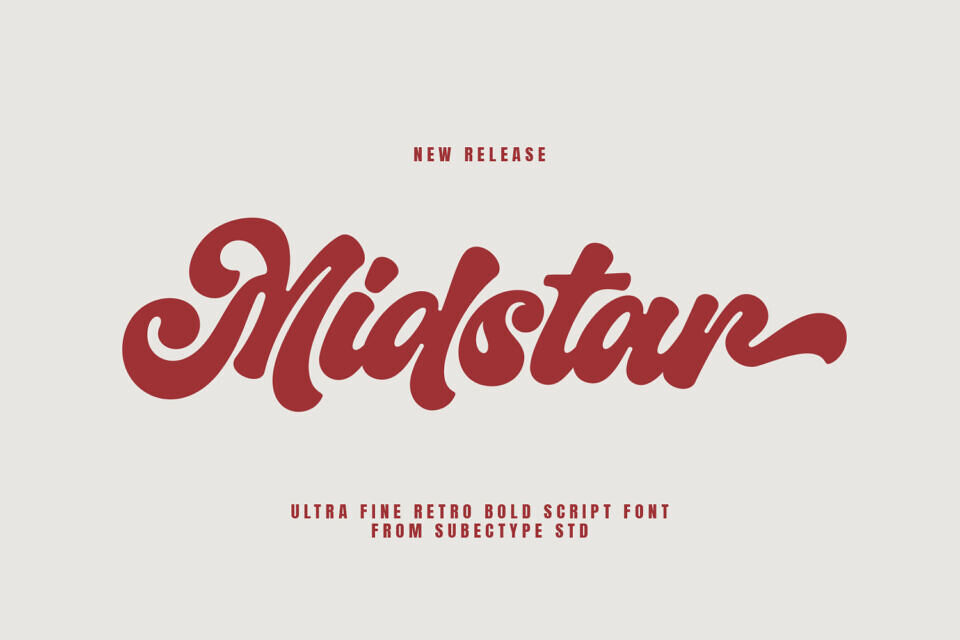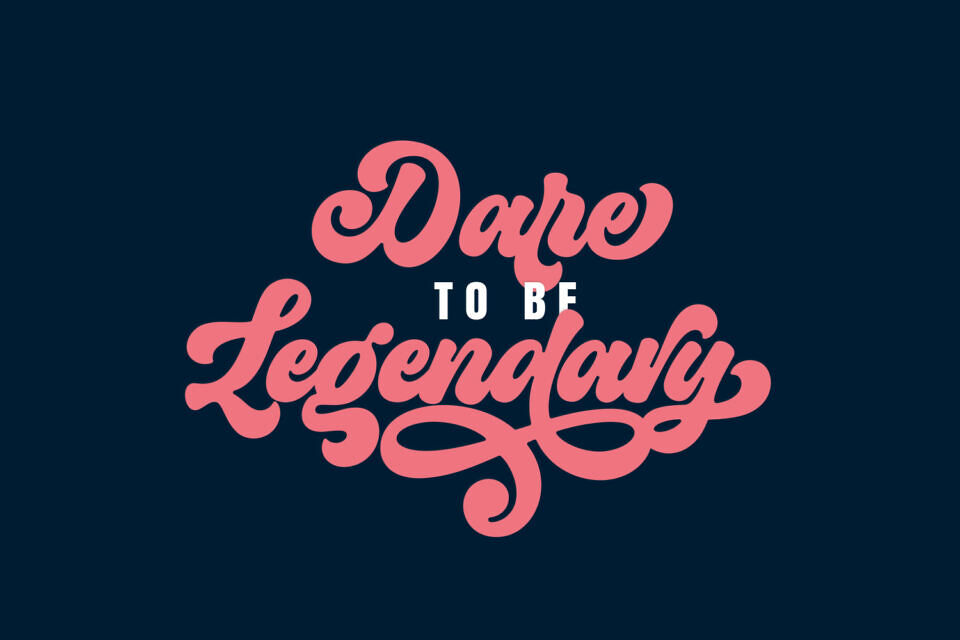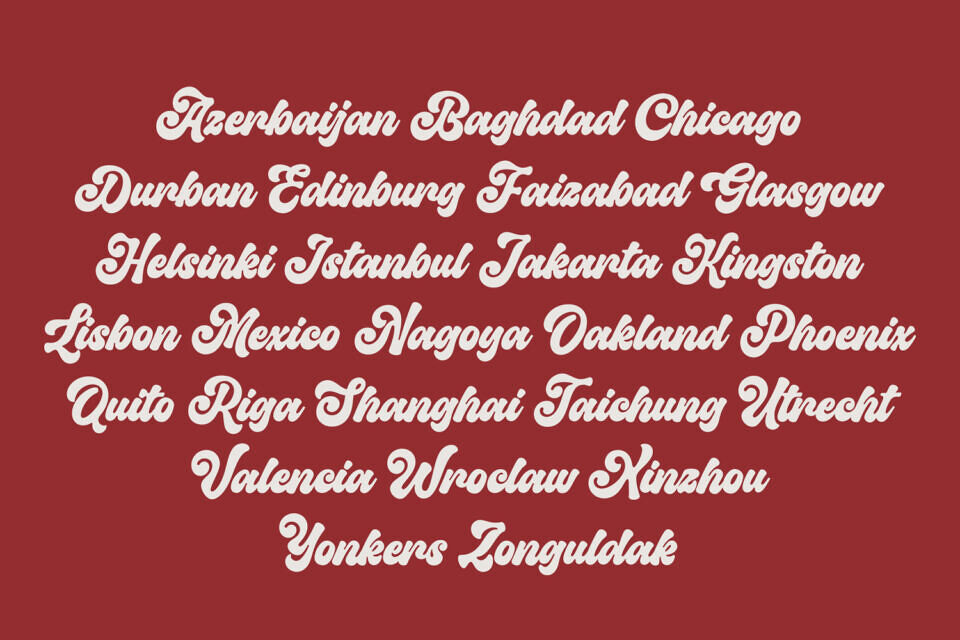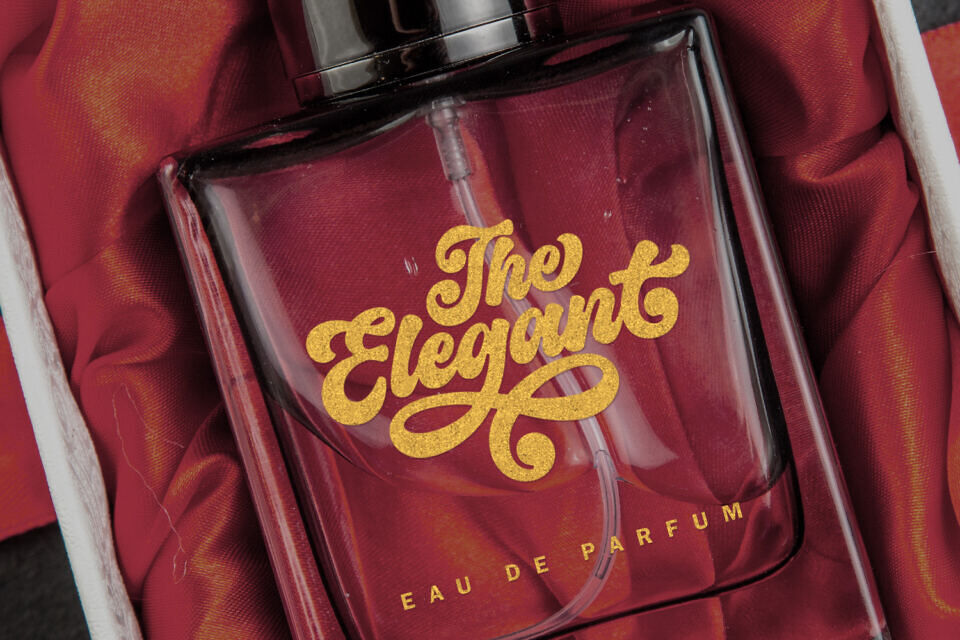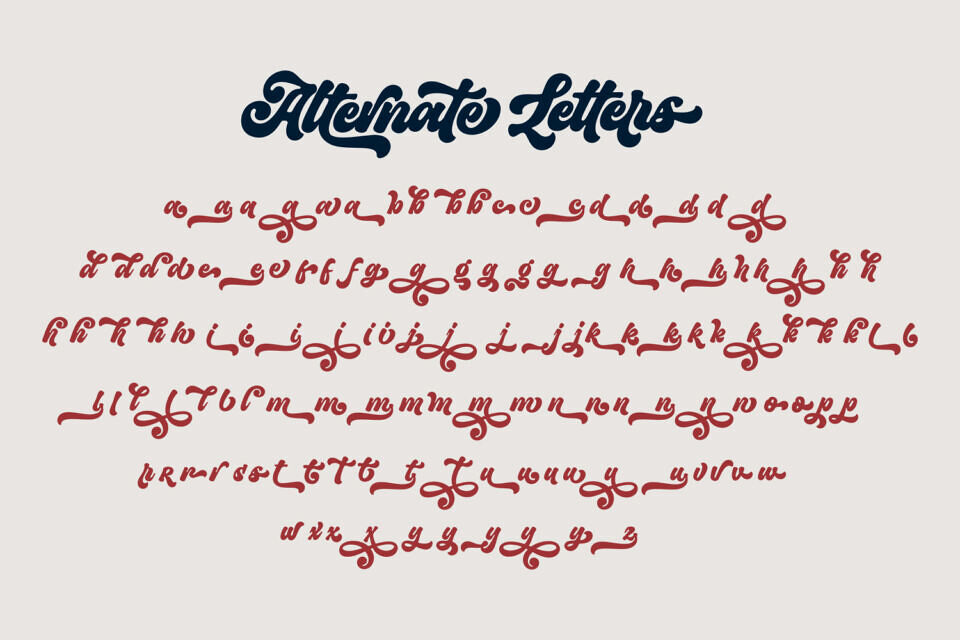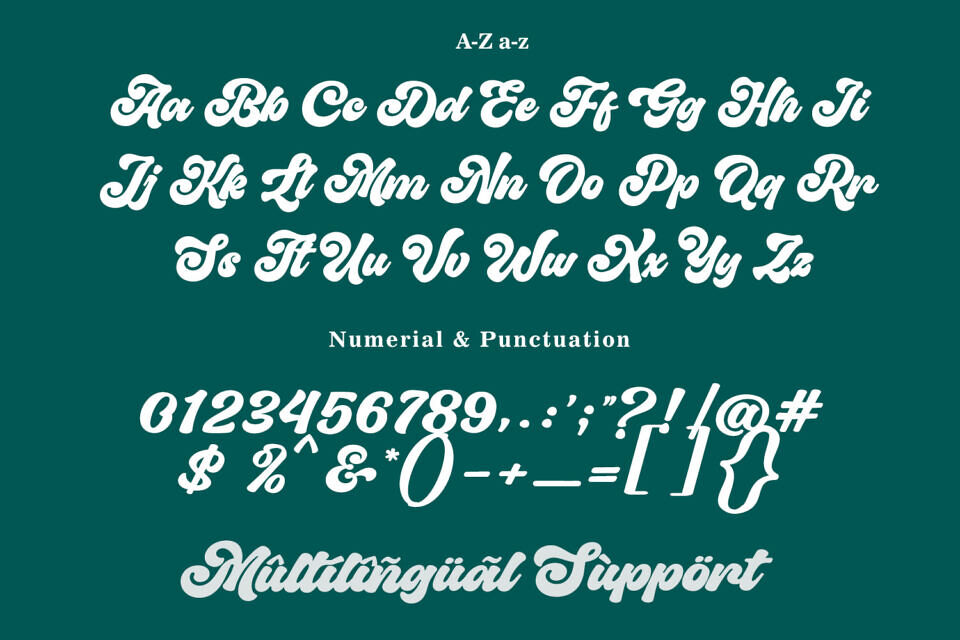
Midstar Font
Midstar is a retro script display font that echoes the groovy vibes of the mid-century era. Its smooth, flowing script and playful swashes make it ideal for designs that require a nostalgic touch, such as vintage posters, album covers, and branding for themed events.
Designed by: Subectype Studio